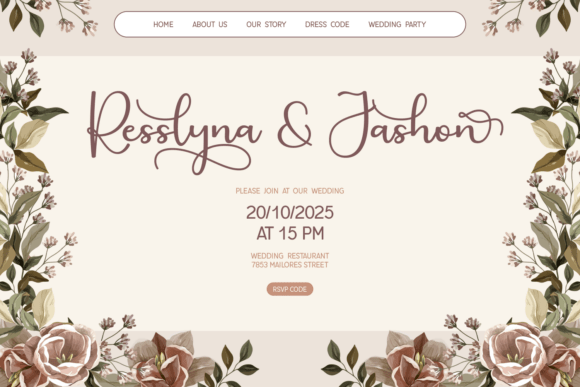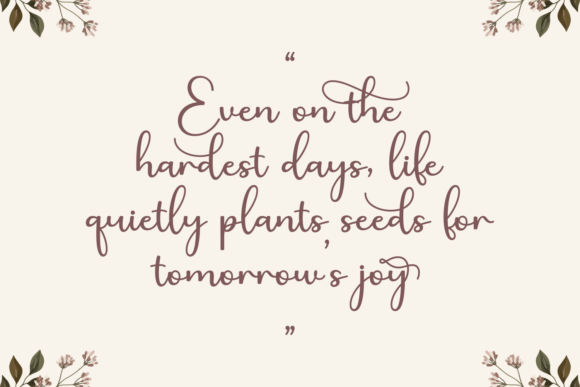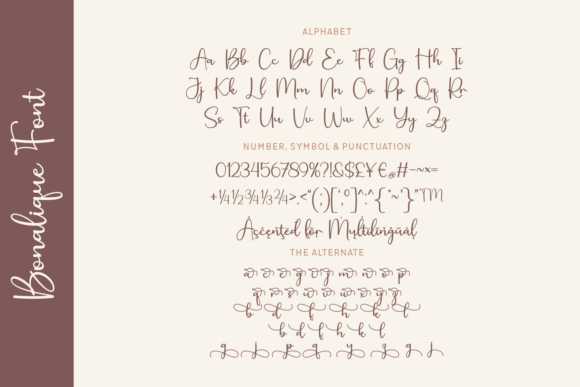
Bonalique Font: Elevate Your Design with Elegance and Sophistication
In the world of typography, a font can make or break a design. For those seeking to infuse their projects with a touch of luxury, romance, and sophistication, the Bonalique font stands out as an exceptional choice. This modern script font is meticulously crafted to bring a sense of elegance and refinement to various design applications, including wedding invitations, luxury branding, beauty packaging, and feminine logos.
The Essence of Bonalique
Bonalique is characterized by its graceful letterforms and ornate swashes, which together create a delicate yet confident aesthetic. The font’s design is a perfect blend of modernity and classic elegance, making it versatile for a wide range of design needs. Its flowing curves and beautifully extended ligatures contribute to a romantic, floral-inspired feel that can significantly enhance any design with a sense of artistry and warmth.
Applications of Bonalique
The versatility of Bonalique makes it suitable for various design projects. Here are some of the key areas where this font truly shines:
- Wedding Invitations: The romantic and elegant feel of Bonalique makes it an ideal choice for wedding invitations. It sets the tone for a sophisticated and memorable event.
- Luxury Branding: For brands aiming to convey a sense of luxury and high-end quality, Bonalique offers a typographic solution that is both refined and impactful.
- Beauty Packaging: The font’s feminine and elegant appearance makes it perfect for beauty packaging, especially for brands that focus on skincare, cosmetics, and fragrances.
- Feminine Logos: Bonalique’s graceful and ornate style is well-suited for logos that aim to communicate a sense of femininity, elegance, and sophistication.
Design Features of Bonalique
Bonalique boasts several design features that set it apart from other script fonts:
- Graceful Letterforms: Each letter in Bonalique is designed with a focus on elegance and fluidity, contributing to a harmonious and refined appearance.
- Ornate Swashes: The font includes beautifully crafted swashes that add a decorative touch to words and sentences, enhancing the overall aesthetic of any text.
- Extended Ligatures: Bonalique features extended ligatures that connect letters in a flowing manner, creating a sense of continuity and artistry.
- Floral-Inspired Feel: The combination of flowing curves and ligatures gives Bonalique a romantic, floral-inspired feel that can add a unique charm to designs.
Why Choose Bonalique?
Choosing Bonalique for your design projects comes with several advantages:
- Unique Aesthetic: Bonalique offers a distinctive look that can help your designs stand out in a crowded market.
- Versatility: Its adaptability across various design applications makes Bonalique a valuable addition to any designer’s font library.
- Elegance and Sophistication: The font’s inherent elegance and sophistication can elevate your designs, making them more appealing to your target audience.
- Artistic Touch: Bonalique brings an artistic touch to your designs, allowing you to create visually stunning and memorable pieces.
Bonalique is more than just a font; it’s a design statement. Its modern script style, characterized by graceful letterforms and ornate swashes, makes it an excellent choice for designers and crafters looking to infuse their projects with elegance, sophistication, and a touch of romance. Whether you’re working on wedding invitations, luxury branding, beauty packaging, or feminine logos, Bonalique offers the perfect blend of delicacy and confidence to elevate your designs. By incorporating Bonalique into your typography arsenal, you’re not just choosing a font; you’re embracing a design aesthetic that can transform your creative projects into works of art.